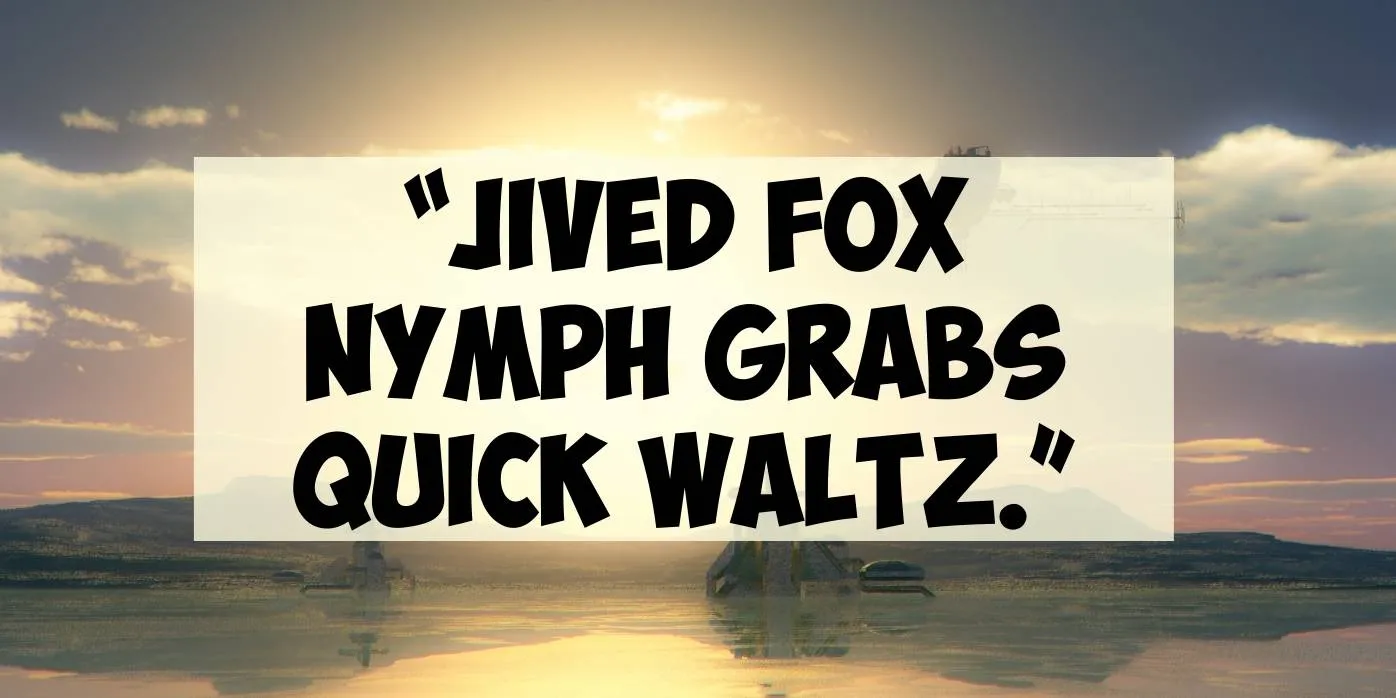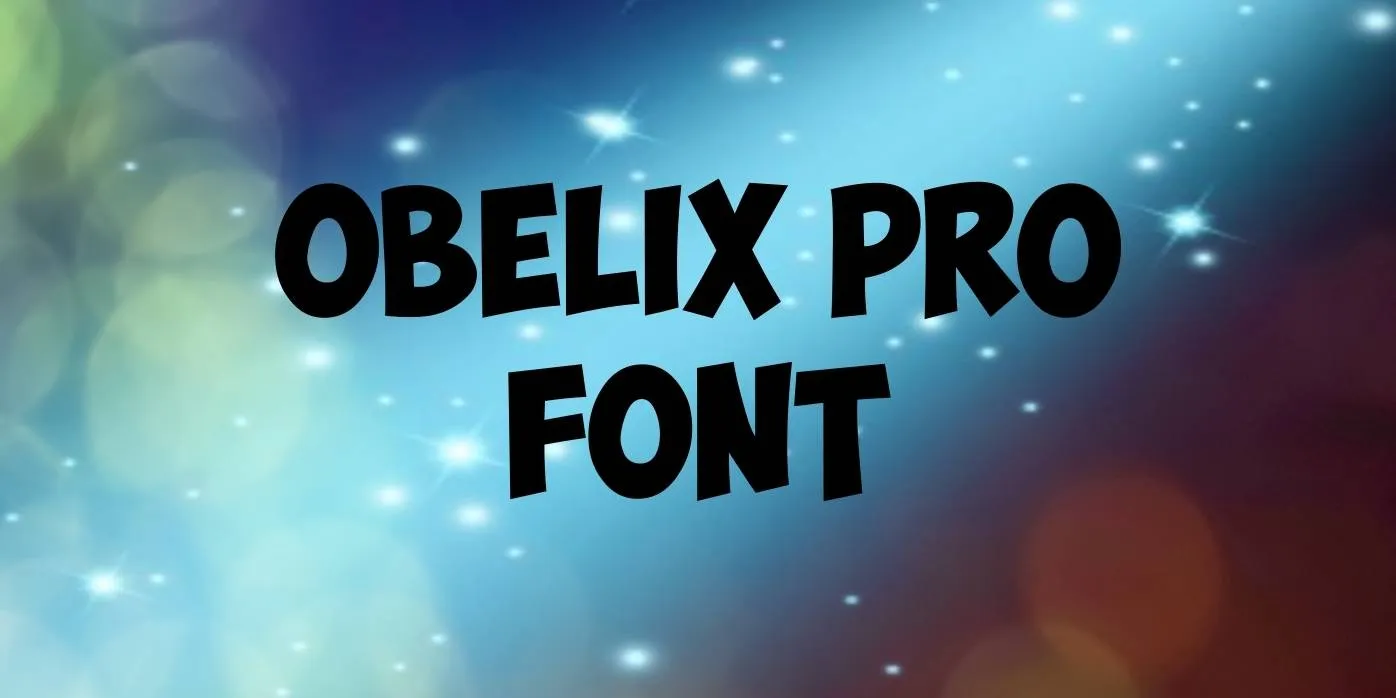
Obelix Pro Font
Hy! here we are introducing a most unique and attractive font family that was famous by theThis ca name Obelix Pro Font. The classic font was designed by the hard work of an intelligent and brilliant designer named Valentin Antonov. Beautiful Typeface was released in the year 2019.
It belongs to the Fancy Font family. This stylish font comes in a total of four weights. Regular, Bold, Italic and Bold Italic are its special and unique weights. This marvelous font is available in 104 amazing styles and more than 181 suitable characters.
Some of the most common and popular fonts of this font family are punctuations, symbols, numerals, Latin, and others. Its copy and paste function is very useful. The Fiesta font is the most similar font to this typeface that helps for various designs. You can use different types of interesting designs.